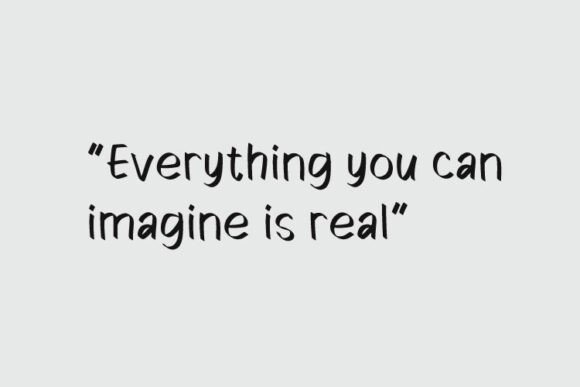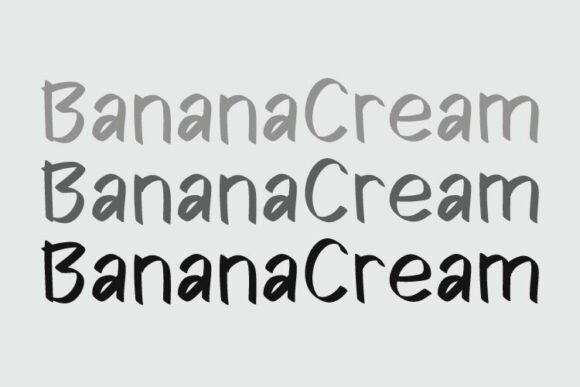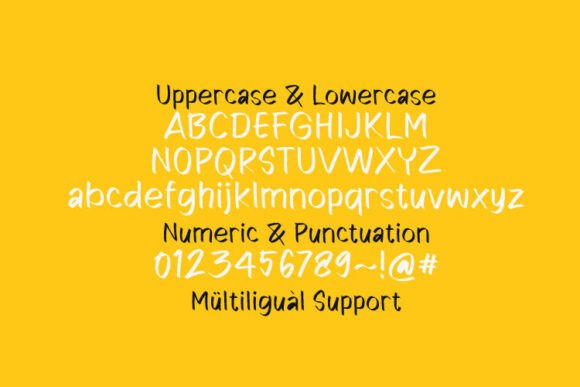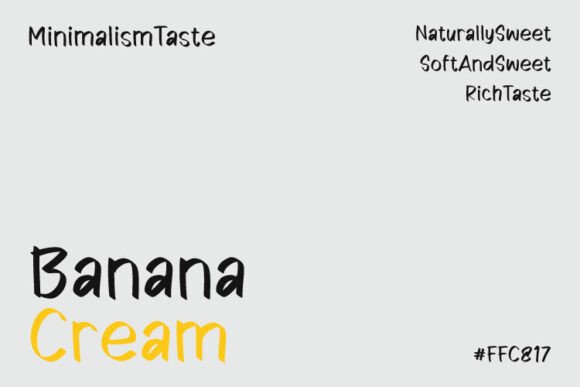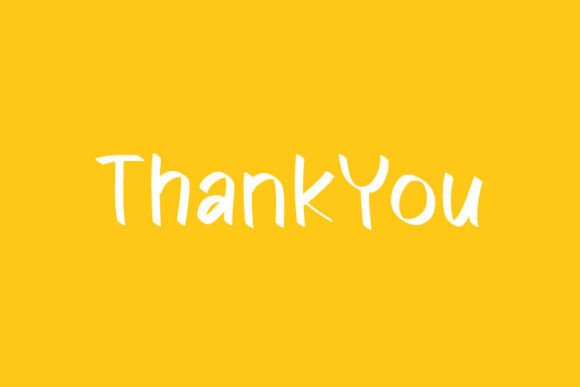
Introducing Banana Cream Font: The Ultimate Handwritten Font for Creative Designs
Are you tired of using the same old fonts for your designs? Look no further than Banana Cream, a beautiful handwritten font that adds a touch of warmth and personality to any project. With its free-flowing stroke style and relaxed, soft, and expressive feel, Banana Cream is perfect for designers and crafters looking to add a personal and artistic touch to their work.
What Makes Banana Cream Font So Special?
Banana Cream is a unique and versatile font that combines natural, handwritten strokes with excellent readability. Its free-flowing style mimics real handwriting, giving your designs a warm and inviting feel that’s perfect for a wide range of applications, from branding and logos to packaging, invitations, and social media posts.
One of the standout features of Banana Cream is its ability to blend seamlessly with various design elements. Whether you’re working on a digital project or a print design, this font is designed to enhance your visuals and storytelling, making it an ideal choice for designers seeking a unique, stylish, and engaging handwritten font.
Banana Cream is a versatile font that can be used for a wide range of design applications, including:
- Branding: Create a unique and memorable brand identity with Banana Cream’s distinctive handwritten style.
- Logos: Add a personal touch to your logos and make them stand out from the crowd.
- Packaging: Give your packaging a warm and inviting feel that will appeal to customers.
- Invitations: Create beautiful and unique invitations for special occasions, such as weddings, birthdays, and graduations.
- Greeting Cards: Add a personal touch to your greeting cards and make them extra special.
- Social Media Posts: Make your social media posts stand out with Banana Cream’s unique and engaging style.
- Creative Projects: Add a touch of personality and whimsy to your creative projects, such as art journals, scrapbooking, and mixed media.
Why Choose Banana Cream Font?
There are many reasons why designers and crafters love Banana Cream font. Here are just a few:
- Unique and Handwritten: Banana Cream is a truly unique and handwritten font that will add a personal touch to your designs.
- Excellent Readability: Despite its handwritten style, Banana Cream is surprisingly easy to read, making it perfect for body text and other applications where readability is key.
- Versatile: Banana Cream can be used for a wide range of design applications, from digital projects to print designs.
Tips for Using Banana Cream Font
Here are a few tips for getting the most out of Banana Cream font:
- Experiment with Different Sizes: Banana Cream looks great in a variety of sizes, from large headings to smaller body text.
- Pair with Other Fonts: Try pairing Banana Cream with other fonts to create a unique and interesting contrast.
- Use for Headings and Titles: Banana Cream is perfect for headings and titles, where its unique and handwritten style can really shine.
- Add a Personal Touch: Use Banana Cream to add a personal touch to your designs and make them extra special.
If you’re looking for a unique and versatile font that will add a touch of warmth and personality to your designs, look no further than Banana Cream. With its free-flowing stroke style, relaxed and soft feel, and excellent readability, this font is perfect for designers and crafters looking to create beautiful and engaging designs. Whether you’re working on a branding project, a logo, or a creative project, Banana Cream is sure to become your new go-to font.